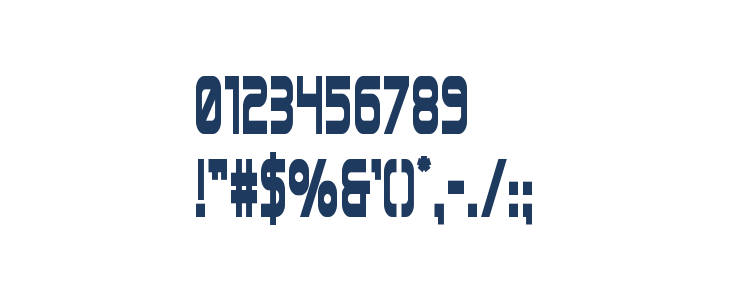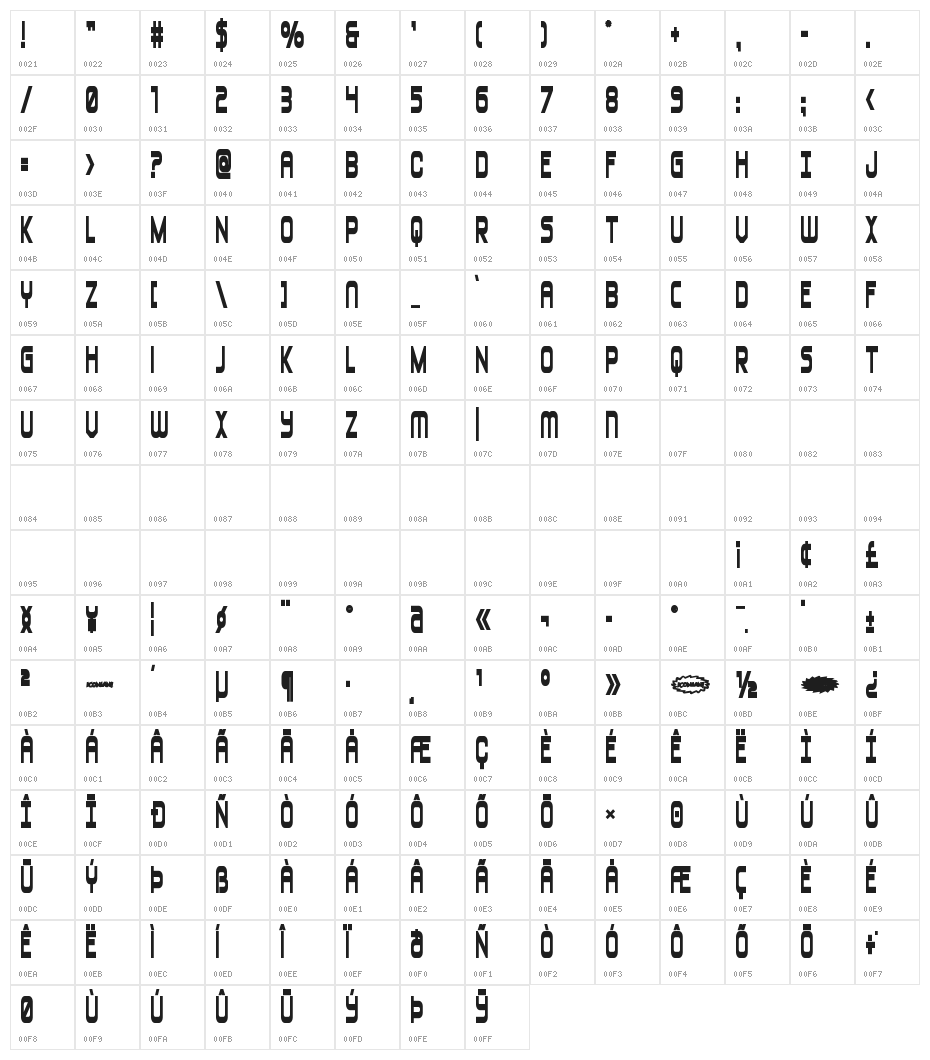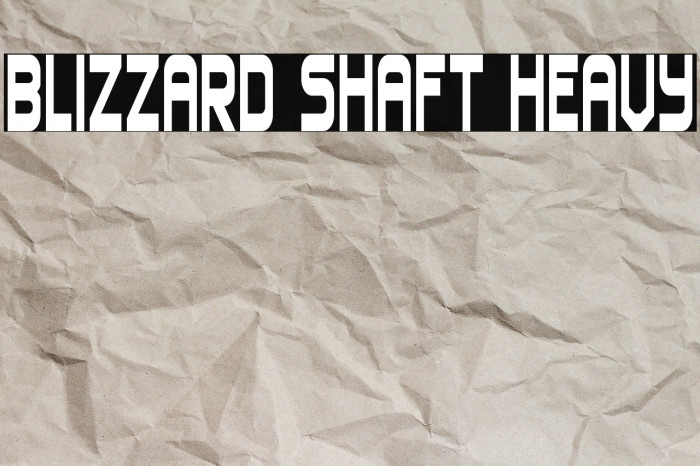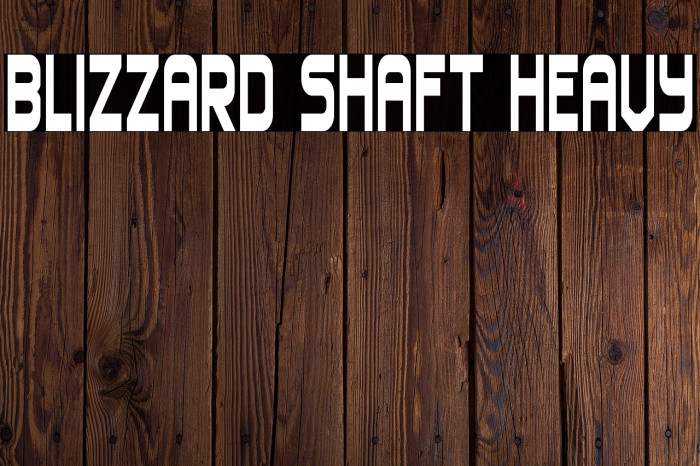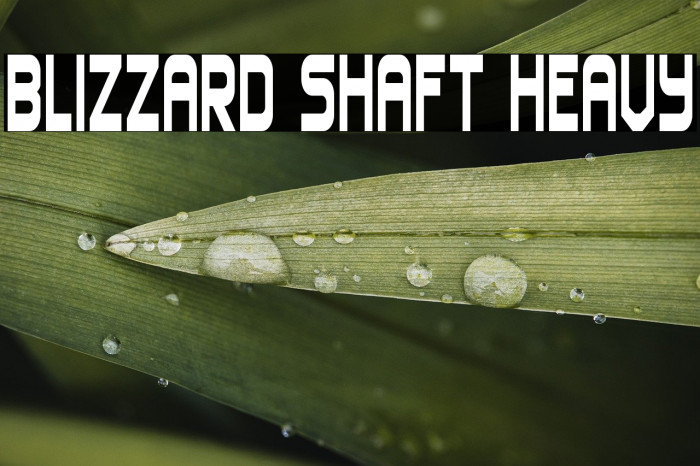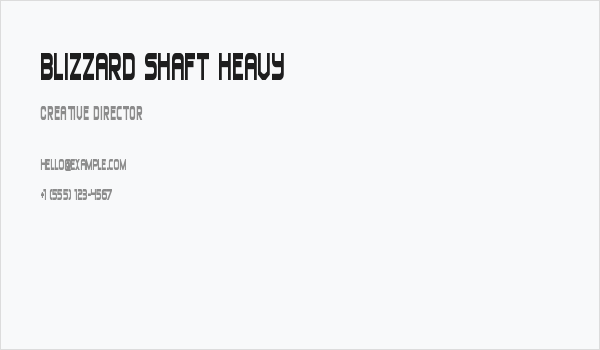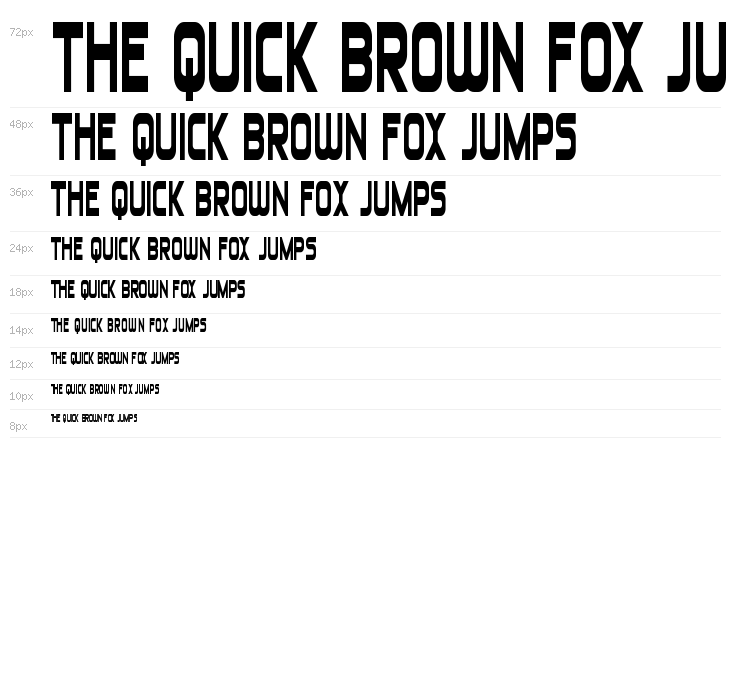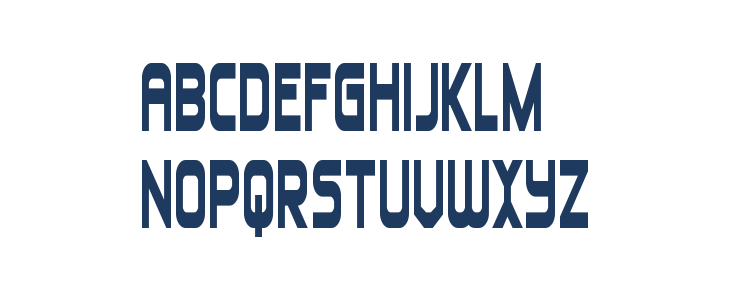
Blizzard Shaft Heavy Font
Blizzard Shaft Heavy Description
This font features a bold, geometric design with strong, angular lines and a modern aesthetic. The characters are uniformly thick, creating a heavy and impactful presence. The uppercase letters are particularly striking, with sharp edges and a blocky appearance that conveys strength and stability. The numerals and special characters maintain this robust style, ensuring consistency across all glyphs. The overall look is clean and contemporary, making it suitable for attention-grabbing headlines and logos.